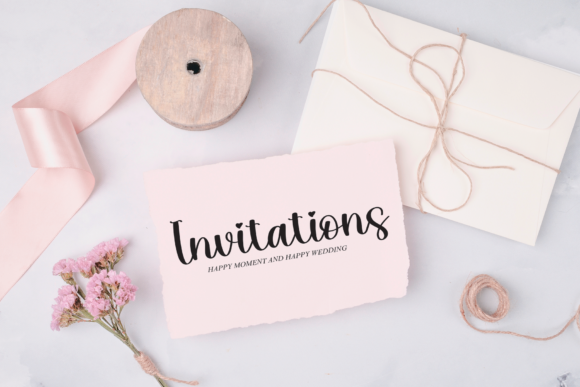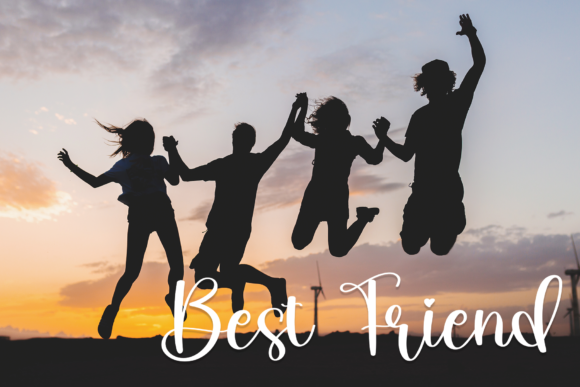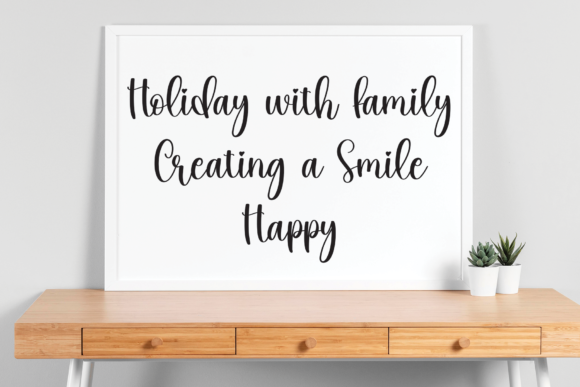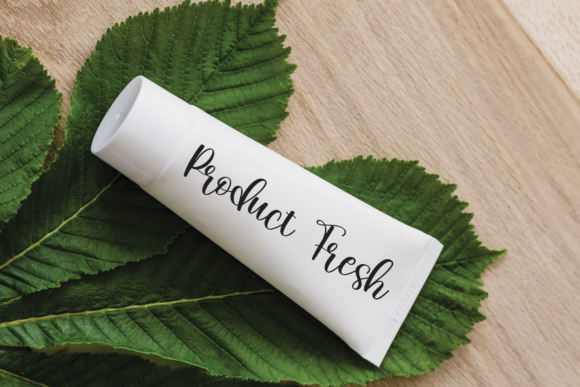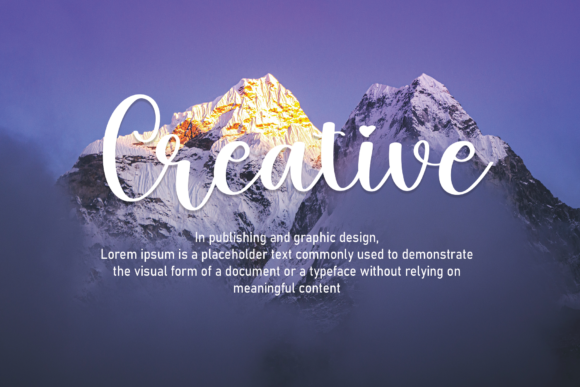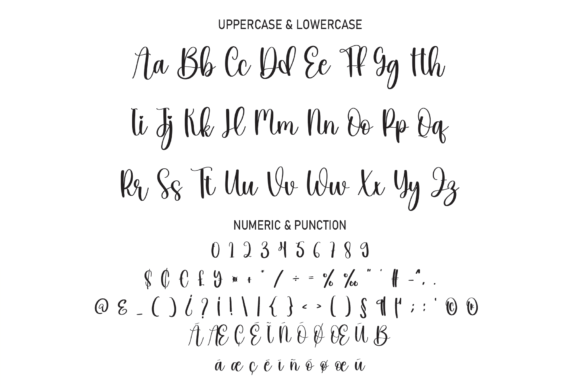
Bemonade Font: Elevate Your Designs with Elegance and Timeless Style
Are you on the hunt for a font that exudes elegance, sophistication, and a touch of playfulness? Look no further than Bemonade, a stunning flowing handwritten font that is sure to capture your heart. With its incredibly distinct and timeless style, Bemonade is the perfect addition to your favorite projects, allowing you to create spectacular designs that stand out from the crowd.
The Characteristics of Bemonade Font
Bemonade is a beautifully crafted handwritten font that boasts an elegant touch, making it ideal for designers and crafters seeking to add a touch of sophistication to their work. Its flowing lines and curves create a sense of movement and fluidity, giving your designs a dynamic and eye-catching appeal. Whether you’re working on a logo, branding materials, or creative projects, Bemonade’s unique style is sure to make a lasting impression.
What Makes Bemonade Font So Special?
So, what sets Bemonade apart from other fonts? Here are just a few reasons why this font has become a favorite among designers and crafters:
• Elegant and Sophisticated: Bemonade’s elegant touch makes it perfect for projects that require a touch of sophistication and refinement.
• Unique and Distinct: With its flowing lines and curves, Bemonade has an incredibly distinct style that sets it apart from other fonts.
• Timeless Appeal: Bemonade’s classic style ensures that your designs will remain timeless and relevant for years to come.
• Versatile: Whether you’re working on a logo, branding materials, or creative projects, Bemonade is a versatile font that can be used in a variety of applications.
How to Use Bemonade Font in Your Designs
Using Bemonade in your designs is easy! Here are a few tips to get you started:
• Pair it with Other Fonts: Bemonade pairs well with other fonts, making it easy to create visually appealing combinations.
• Experiment with Sizes and Colors: Don’t be afraid to experiment with different sizes and colors to find the perfect look for your design.
• Use it for Headings and Titles: Bemonade’s elegant style makes it perfect for headings and titles, adding a touch of sophistication to your designs.
• Add it to Your Branding Materials: Use Bemonade to create consistent branding materials, such as business cards, brochures, and letterheads.
Who Can Benefit from Using Bemonade Font?
Bemonade is a versatile font that can be used by a variety of designers and crafters, including:
• Graphic Designers: Bemonade is perfect for graphic designers seeking to create visually appealing designs for their clients.
• Branding Experts: Use Bemonade to create consistent branding materials that exude elegance and sophistication.
• Crafters and Artists: Bemonade’s unique style makes it perfect for crafters and artists seeking to add a touch of personality to their work.
• Small Business Owners: Use Bemonade to create professional-looking designs for your small business, including logos, business cards, and marketing materials.
Font Name Bemonade Font
Author Creativewhitee
In conclusion, Bemonade is a stunning flowing handwritten font that is sure to capture your heart. With its elegant touch, unique style, and timeless appeal, Bemonade is the perfect addition to your favorite projects. Whether you’re a graphic designer, branding expert, crafter, or small business owner, Bemonade is a versatile font that can help you create spectacular designs that stand out from the crowd. So why wait? Fall in love with Bemonade today and elevate your designs to new heights!